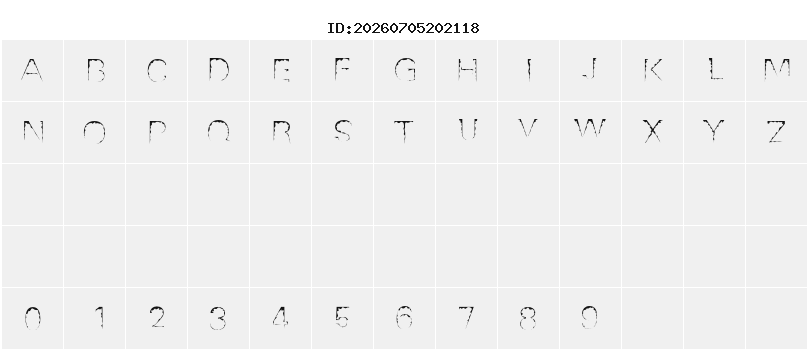
Dishonor Preview
About Dishonor.otf
Dishonor.otf is a modern, elegant sans-serif font designed for ultimate readability and visual harmony. Perfect for branding, headlines, web design, and print materials.